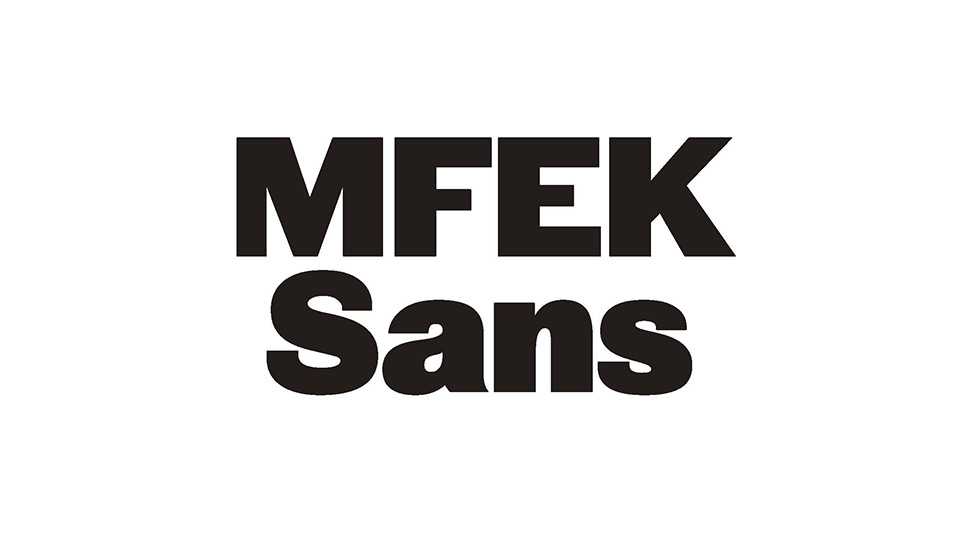
Download MFEK Sans font, an original variable typeface inspired by Wooden Type from the mid to late 1800s. MFEK Sans font is designed to be highly versatile while also being highly expressive.